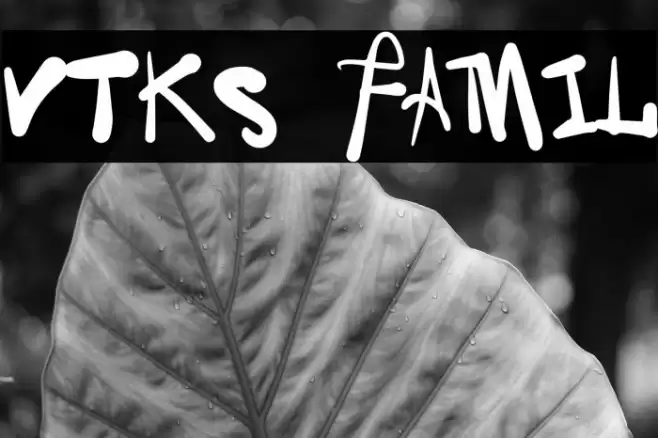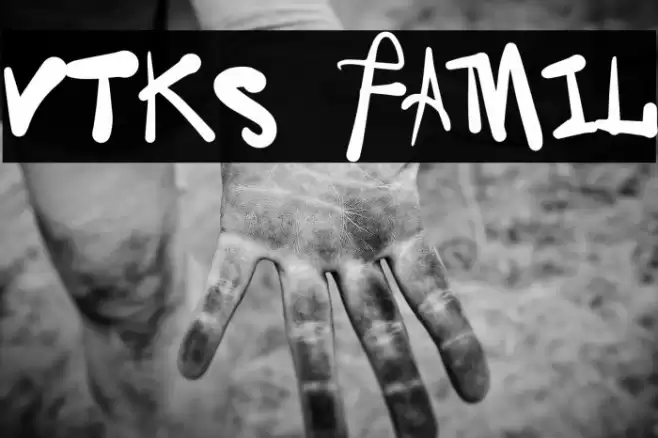
Vtks Family Font
Vtks Family Description
This font features a bold, energetic style with a handwritten appearance. The characters are slightly irregular, giving it a playful and dynamic feel. The uppercase letters are prominent and expressive, while the lowercase letters maintain a consistent flow. The strokes are thick and varied, adding to the font's lively character. The overall design is informal and artistic, making it suitable for creative and casual applications. The font's unique style is characterized by its boldness and the slight slant in some characters, enhancing its informal and approachable look.
A bold, handwritten-style font with an energetic and playful appearance from Uncategorized fonts.
- Proposed Projects: Ideal for creative projects such as posters, invitations, and branding that require a lively and informal touch.